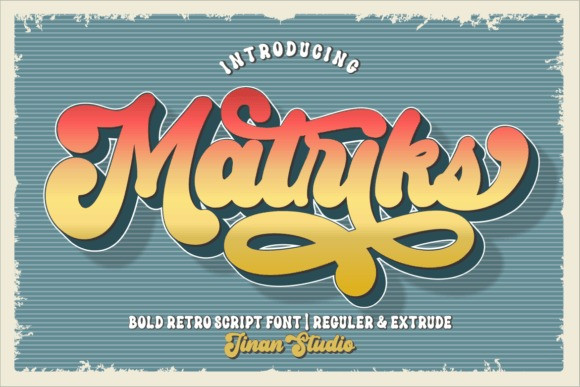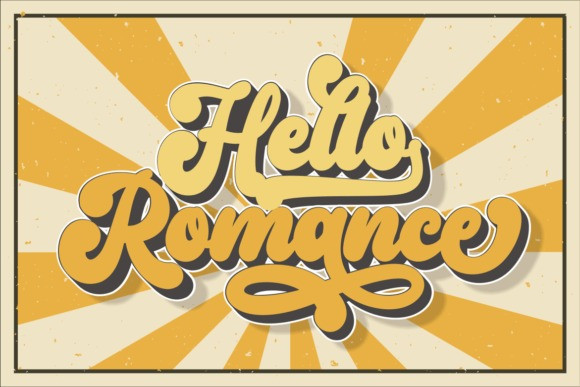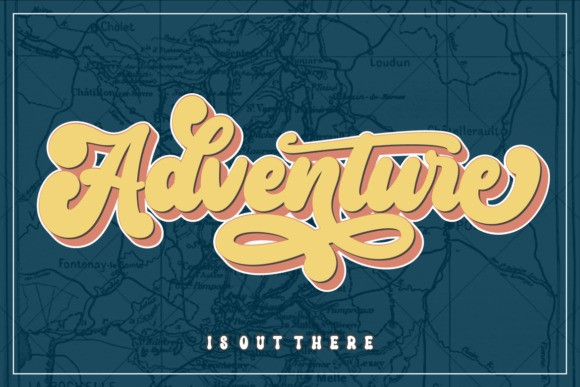
Matriks Font
Matriks is a retro & bold handwritten script font. It is perfect for a wide spectrum of applications such as greeting cards, headlines, magazines, logos and many more! Add it confidently to your projects, and you will love the results.